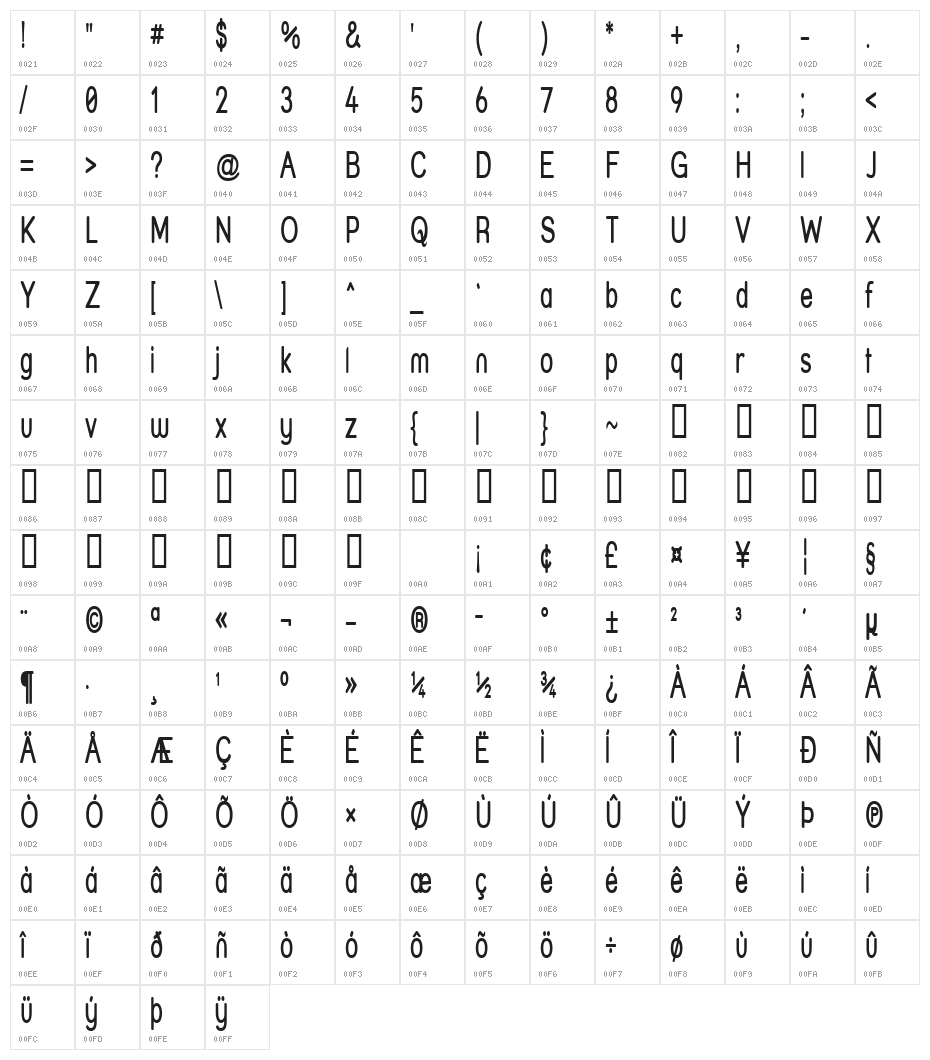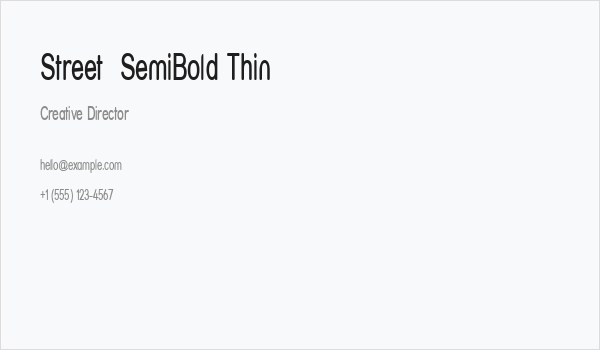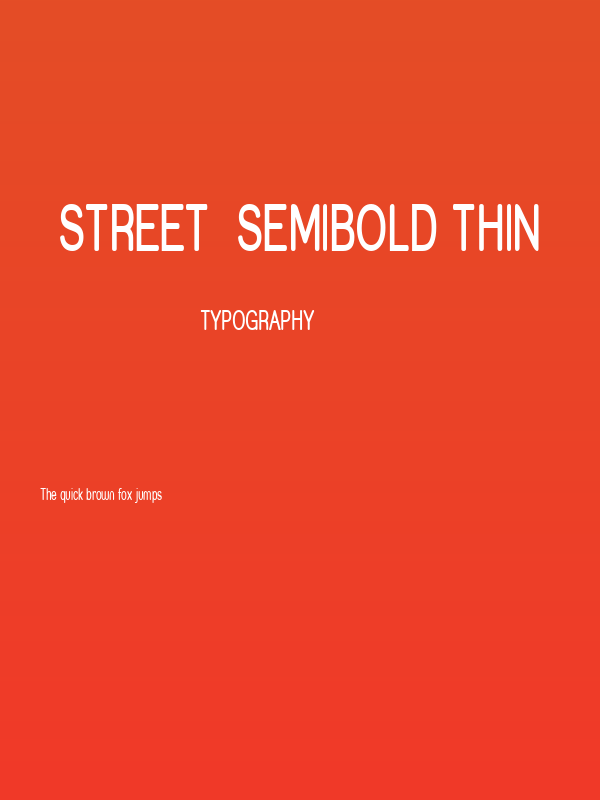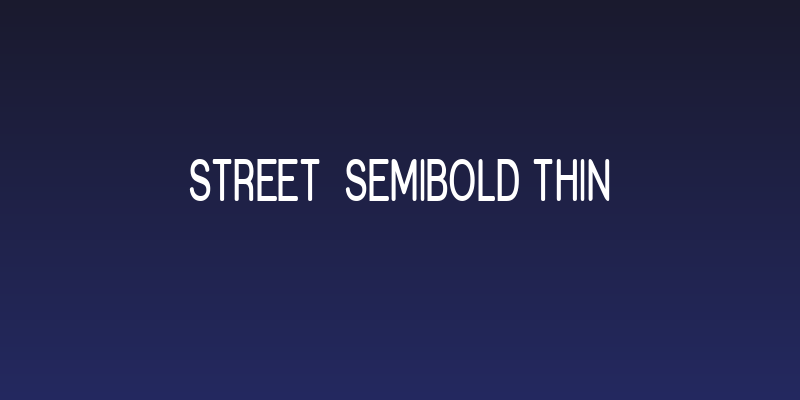
Street SemiBold Thin Font
Street SemiBold Thin Description
This font features a clean and modern sans-serif style with a semi-bold weight, offering a balanced and approachable appearance. The characters are evenly spaced with a slightly condensed width, making it suitable for both headlines and body text. The design is straightforward and legible, with rounded edges that add a friendly touch. The numerals and special characters are consistent with the overall style, ensuring uniformity across different uses. Its simplicity and clarity make it versatile for various design projects.
| Proposed Projects | Ideal for branding, web design, advertising, and editorial projects where clarity and modernity are key. |